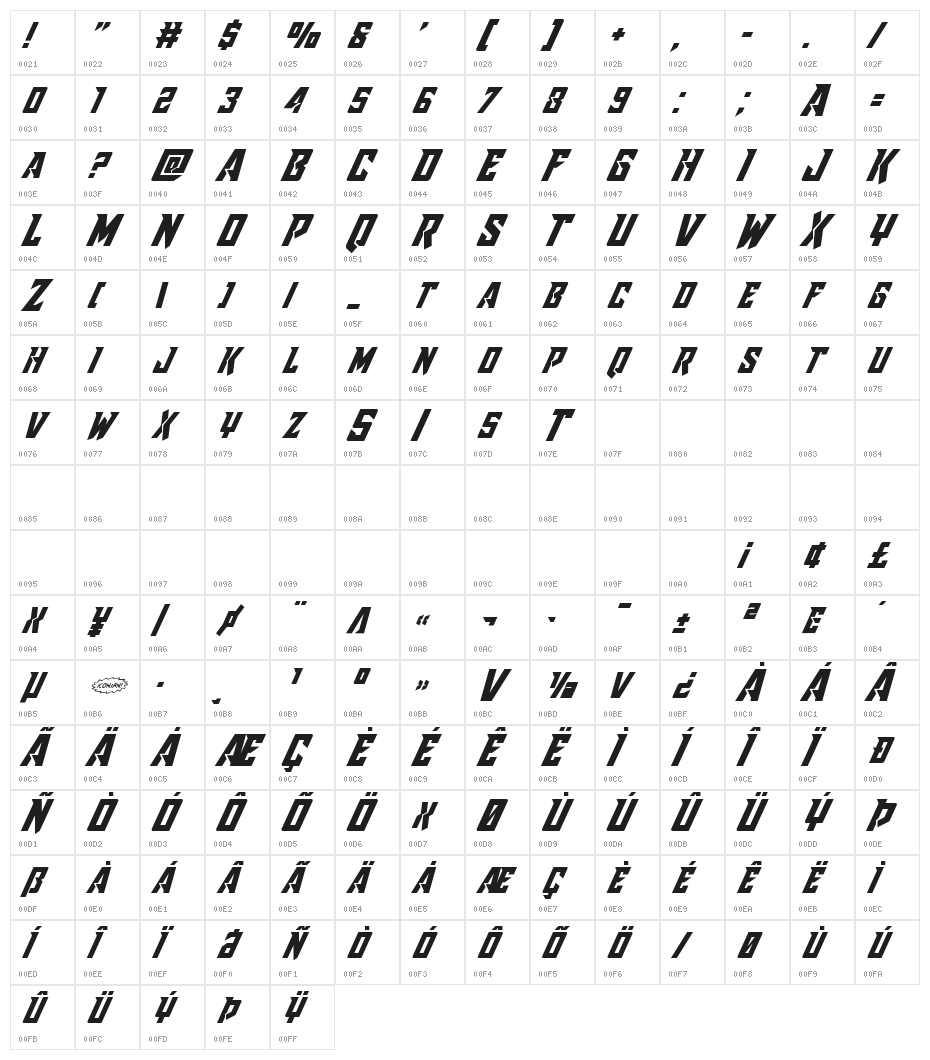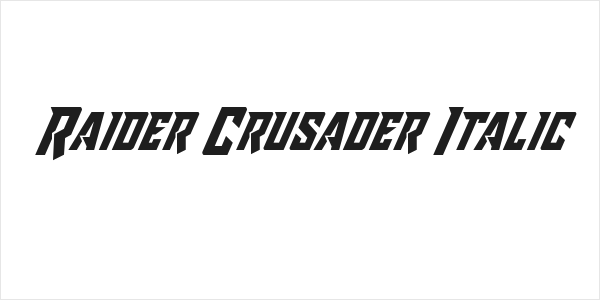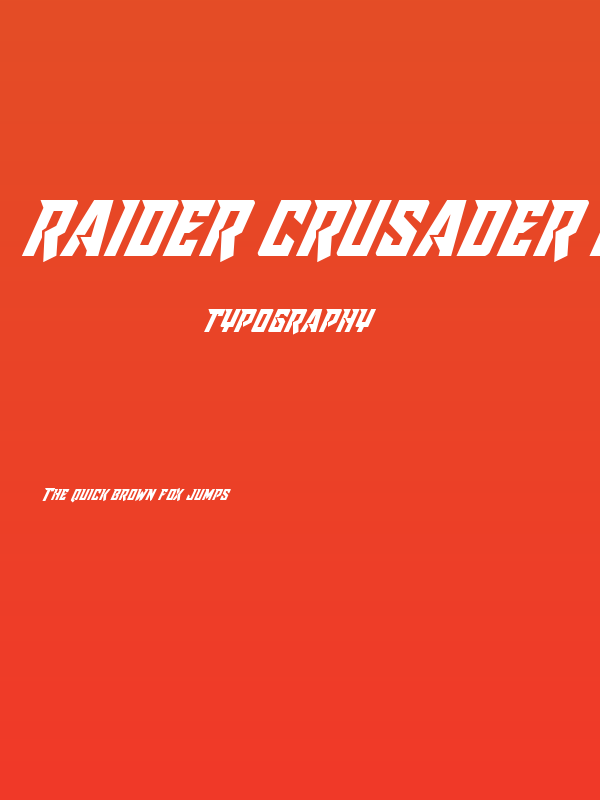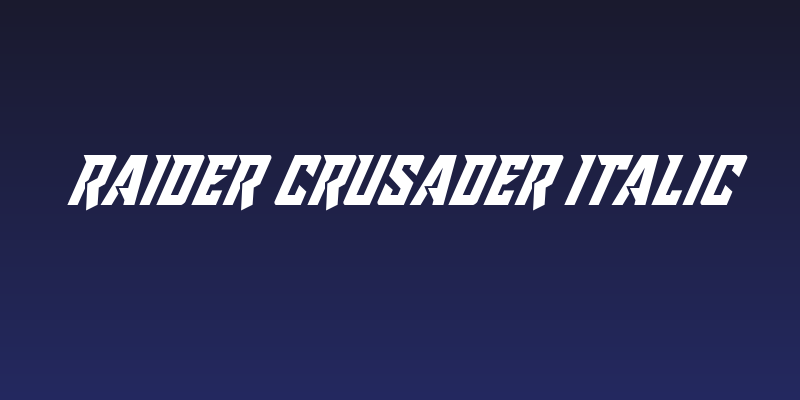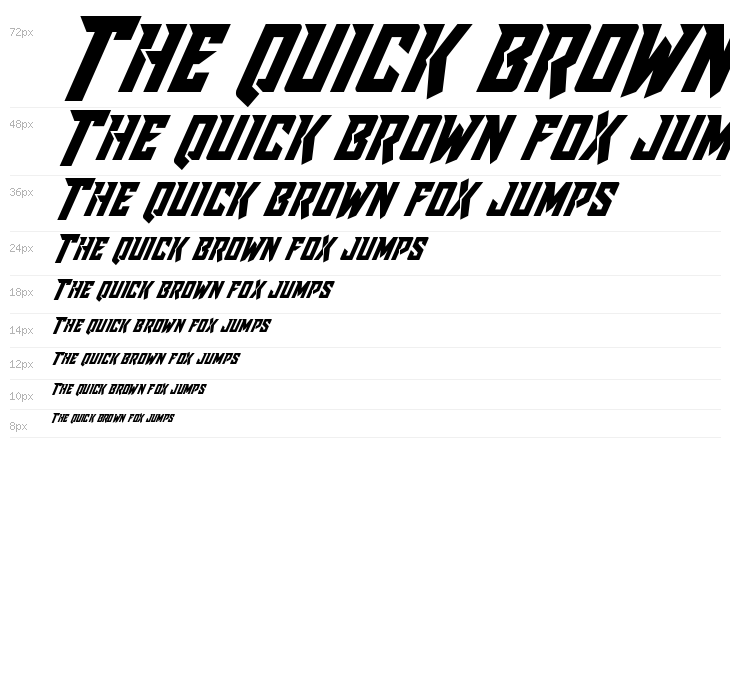
Raider Crusader Italic Font
Raider Crusader Italic Description
This font features a bold and dynamic style with sharp, angular edges and a strong italic slant. The characters are designed with a sense of movement and aggression, making them stand out with a commanding presence. The uppercase and lowercase letters maintain a consistent design, emphasizing the font's cohesive look. The numerals and special characters follow the same bold and angular aesthetic, ensuring uniformity across all glyphs. The font's unique style is reminiscent of sports or action-themed designs, providing a sense of energy and intensity.
| Proposed Projects | Ideal for sports branding, action movie posters, video game titles, and dynamic logo designs. |